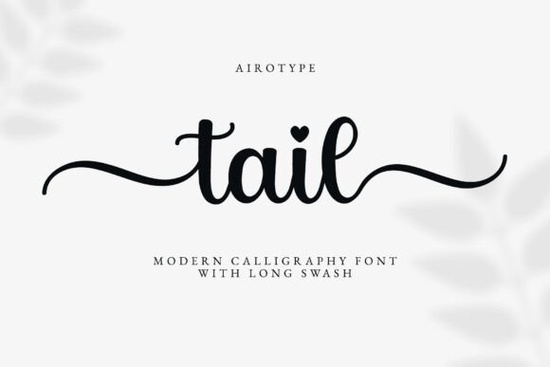
The Tail Font is a modern script calligraphy typeface designed to bring elegance and charm to creative projects. With its graceful tail swashes at the beginning and end of each letter, it adds a polished, romantic feel without much effort. Whether you're working on wedding invitations, birthday cards, or farmhouse-style décor, this font delivers a soft, hand-lettered look that feels personal and refined.
What Makes Tail Font Stand Out from Other Script Fonts?
There are thousands of script fonts out there, so what makes this one worth a closer look? The answer is in its built-in details. Tail Font features decorative tail swashes that naturally extend from certain letters. Unlike many fonts that require you to manually add flourishes or alternate characters, this one bakes the elegance right into the design. You type, and the swashes appear.
That said, Tail Font isn't overly ornate. It stays clean and readable, which is a balance many script fonts struggle to find. If you've ever used a calligraphy font that looked beautiful in the preview but turned into a tangled mess at smaller sizes, you'll appreciate how Tail Font keeps its shape.
What Types of Projects Work Best with Tail Font?
This font was built with specific use cases in mind, and it shines brightest in projects where elegance matters. Here are some popular ways designers and crafters put it to work:
- Wedding invitations and save-the-dates the flowing swashes give stationery a romantic, handmade quality
- Greeting cards and birthday designs adds personality without looking cluttered
- Sublimation projects works well on mugs, tote bags, and apparel
- T-shirt designs especially for boutique or feminine-themed apparel
- Farmhouse and home décor quotes pairs nicely with rustic and modern farmhouse aesthetics
- Stickers and planner accessories the clean script reads well even at smaller sizes
- Social media graphics and branding gives quotes and headers a polished, boutique feel
For print-on-demand sellers, this kind of versatility matters. One font that works across multiple product lines means fewer purchases and a more consistent brand style.
How Does Tail Font Compare to Similar Script Fonts?
Each of these fonts has its own personality, so the right choice really depends on the mood you're going for. Tail Font sits in that sweet spot between simple and decorative elegant enough for formal projects, but not so ornate that it becomes hard to read.
What Should You Pair with Tail Font?
Script fonts rarely work well on their own for body text. A good pairing strategy is to use Tail Font for headings, names, or short phrases, and pair it with a clean sans-serif or serif font for longer text. Simple options like a basic sans-serif or a light serif typeface keep the focus on your script without competing for attention.
When pairing fonts, pay attention to weight and spacing. A script font with thick swashes pairs better with a medium-weight companion, while a lighter script works alongside a slightly bolder secondary font.
Tip: Before committing to a final design, type out the specific words or phrases you'll be using. Script fonts can look very different depending on which letters sit next to each other, and Tail Font's swashes are especially sensitive to letter combinations. A quick test run can save you from surprises later.